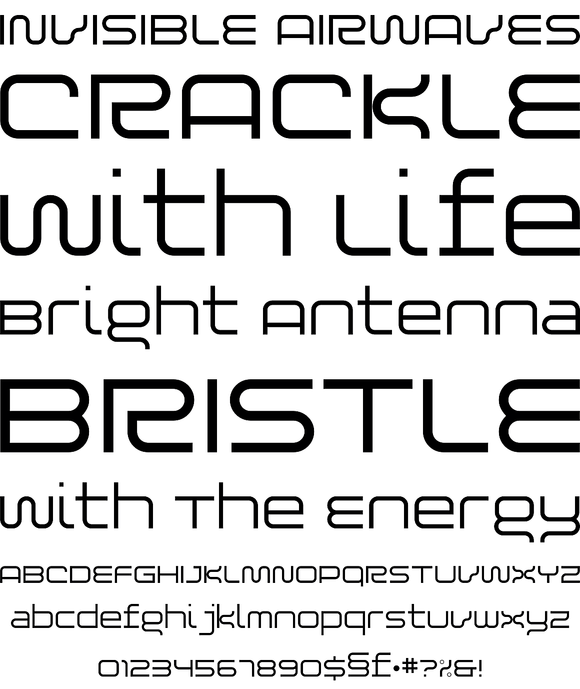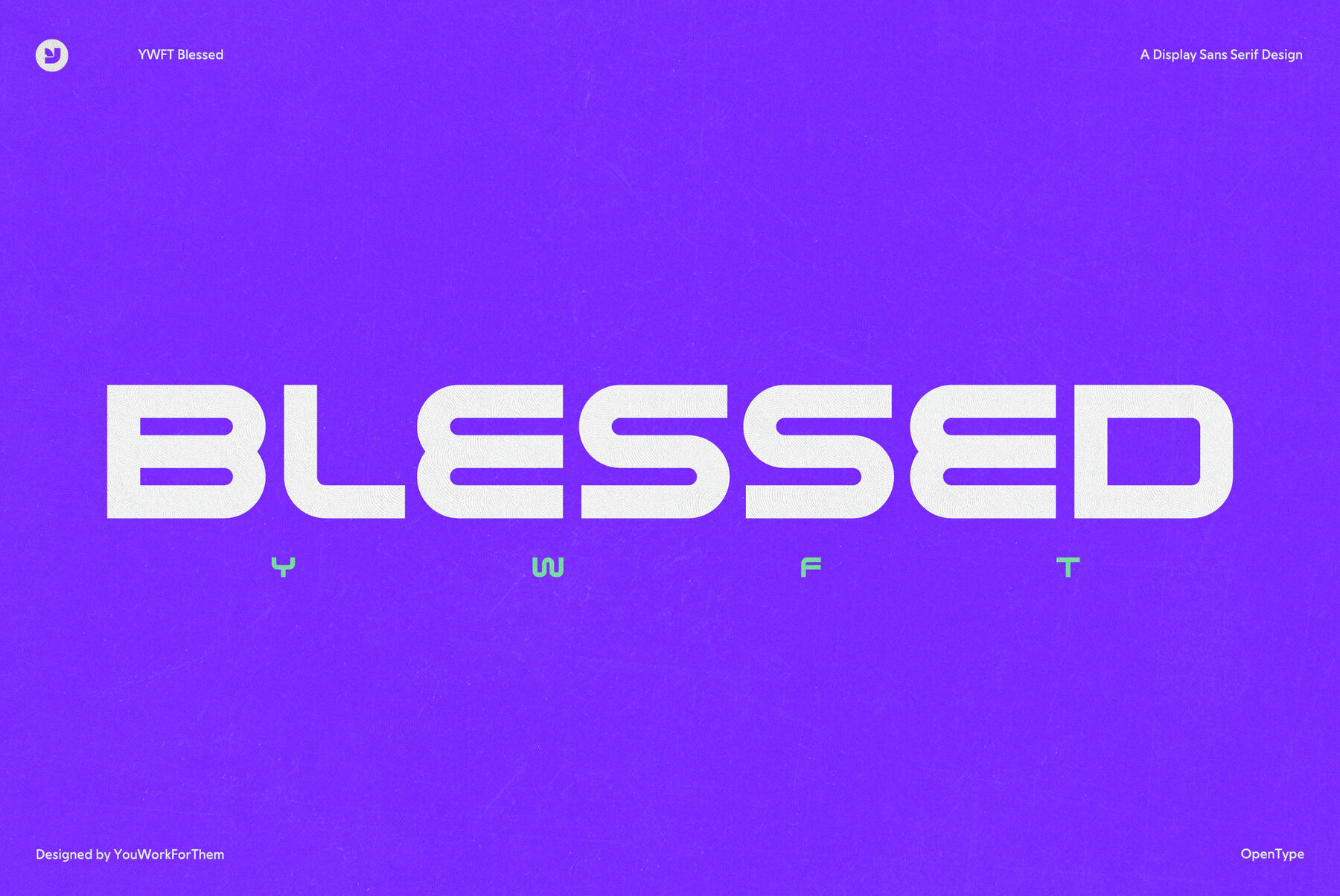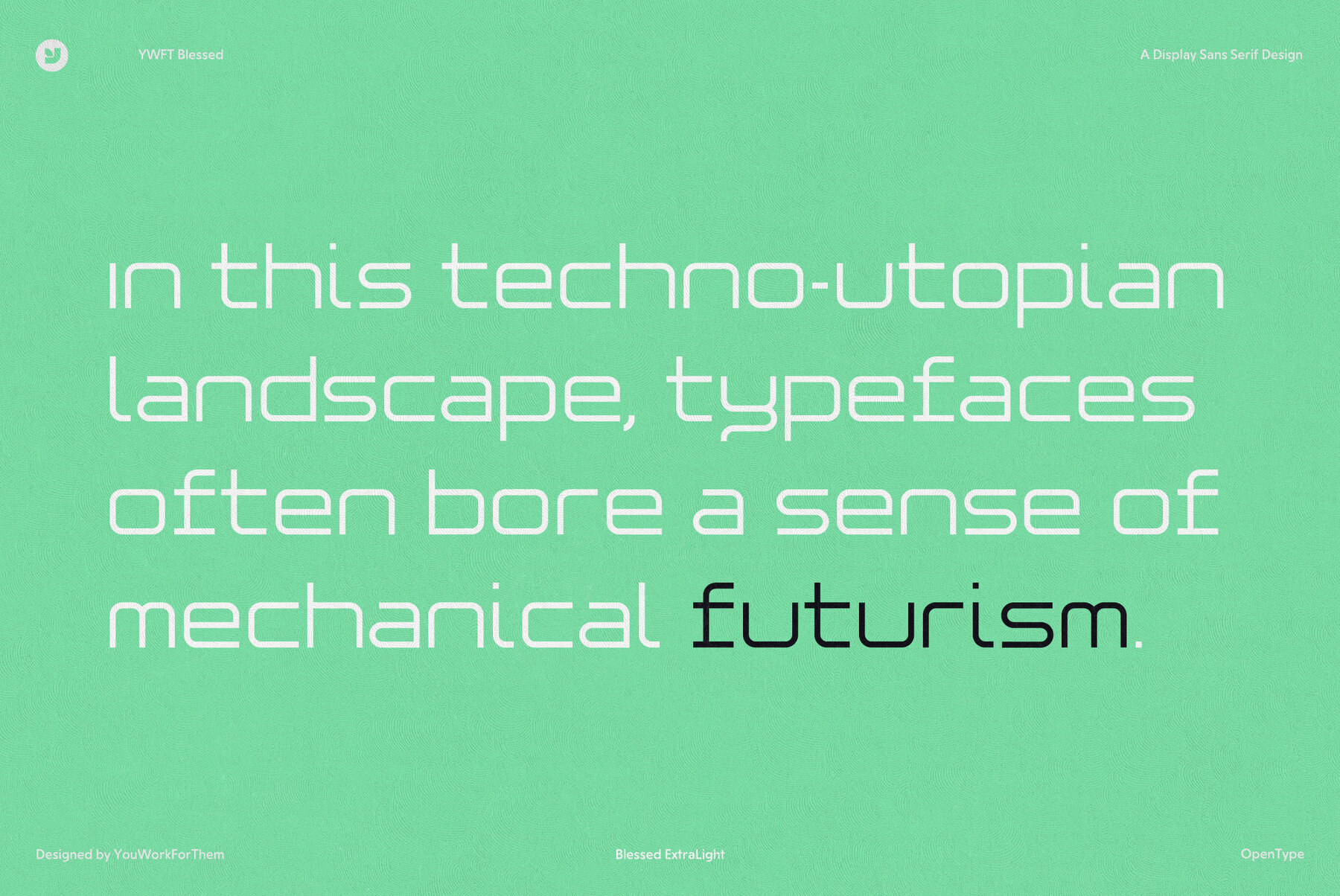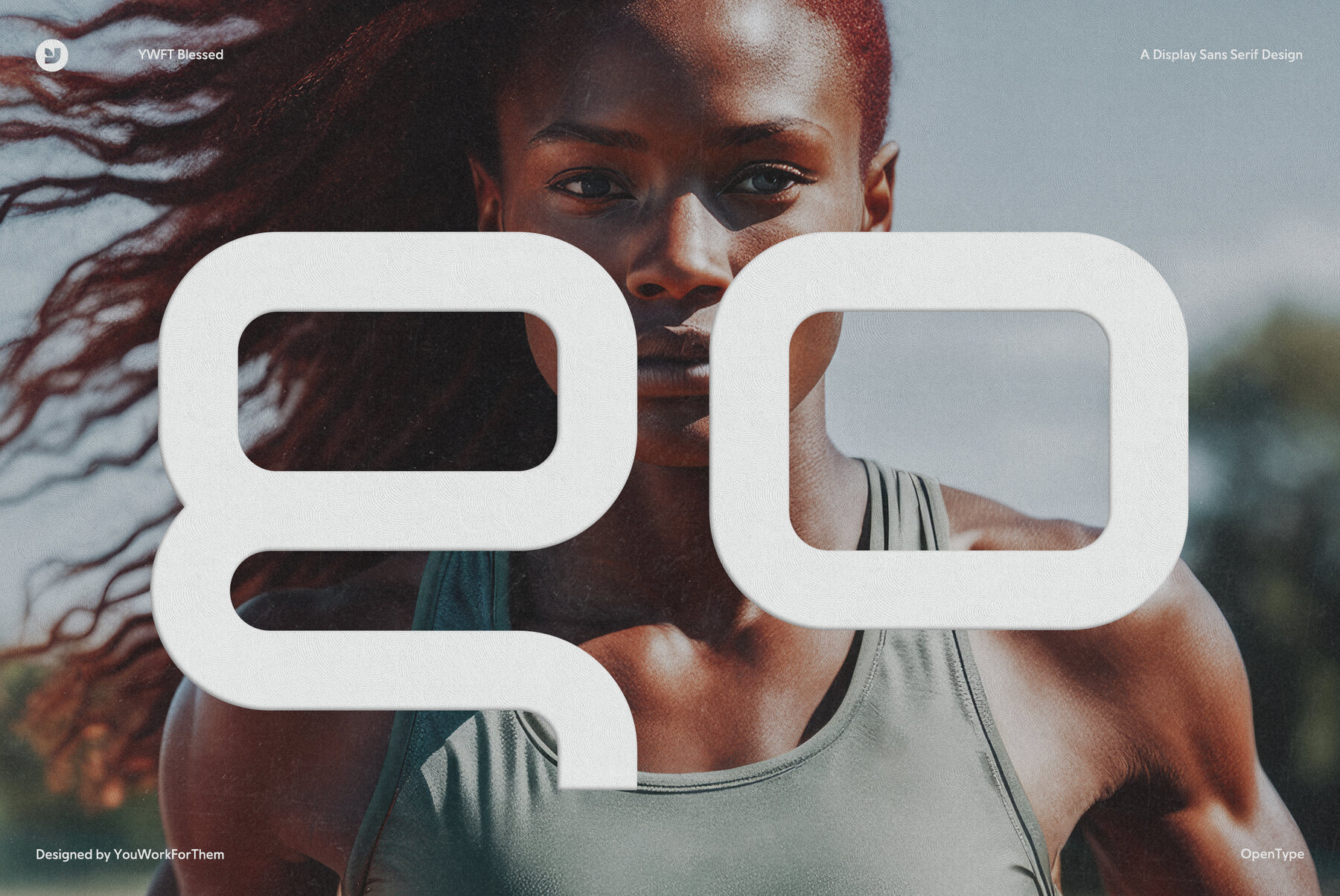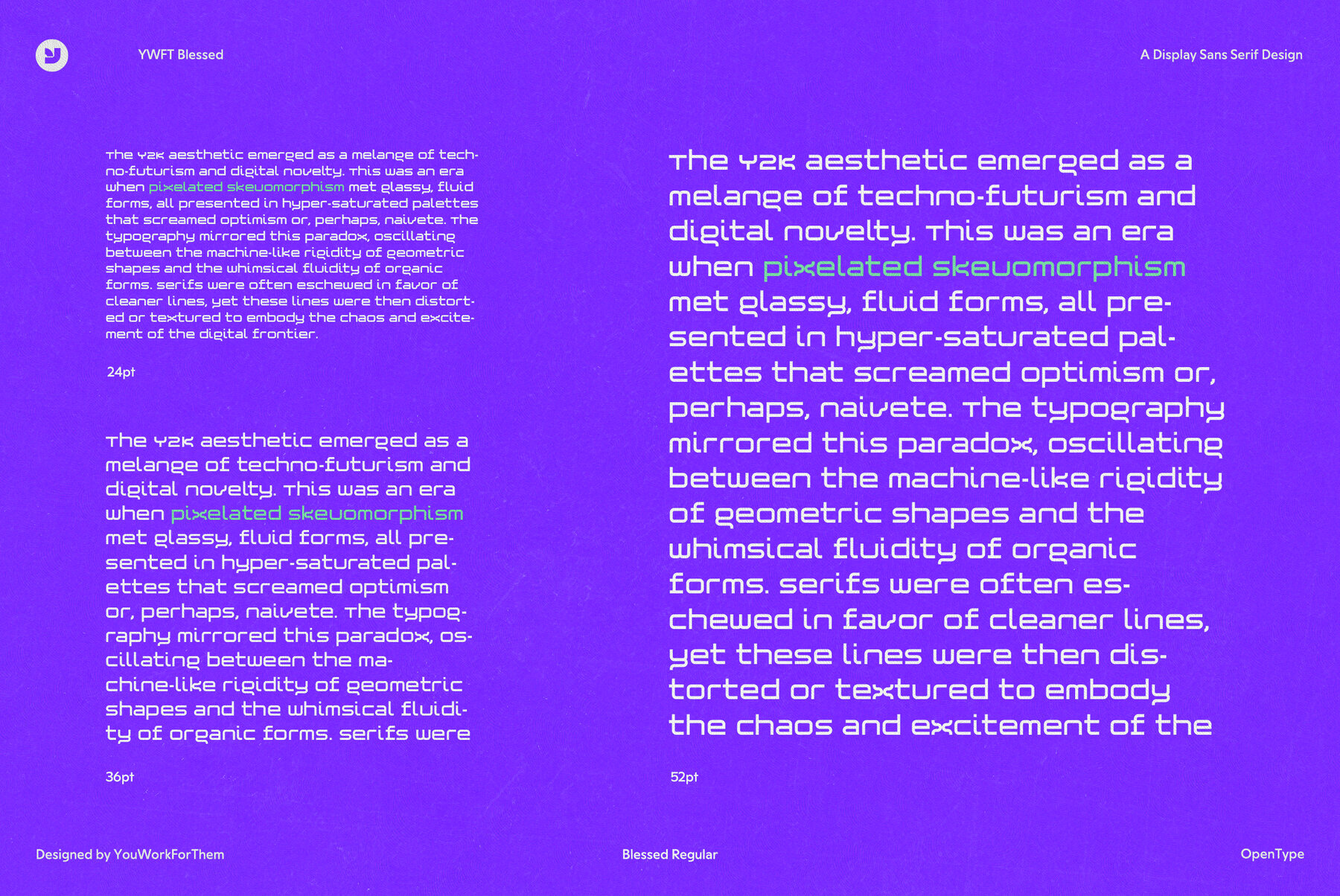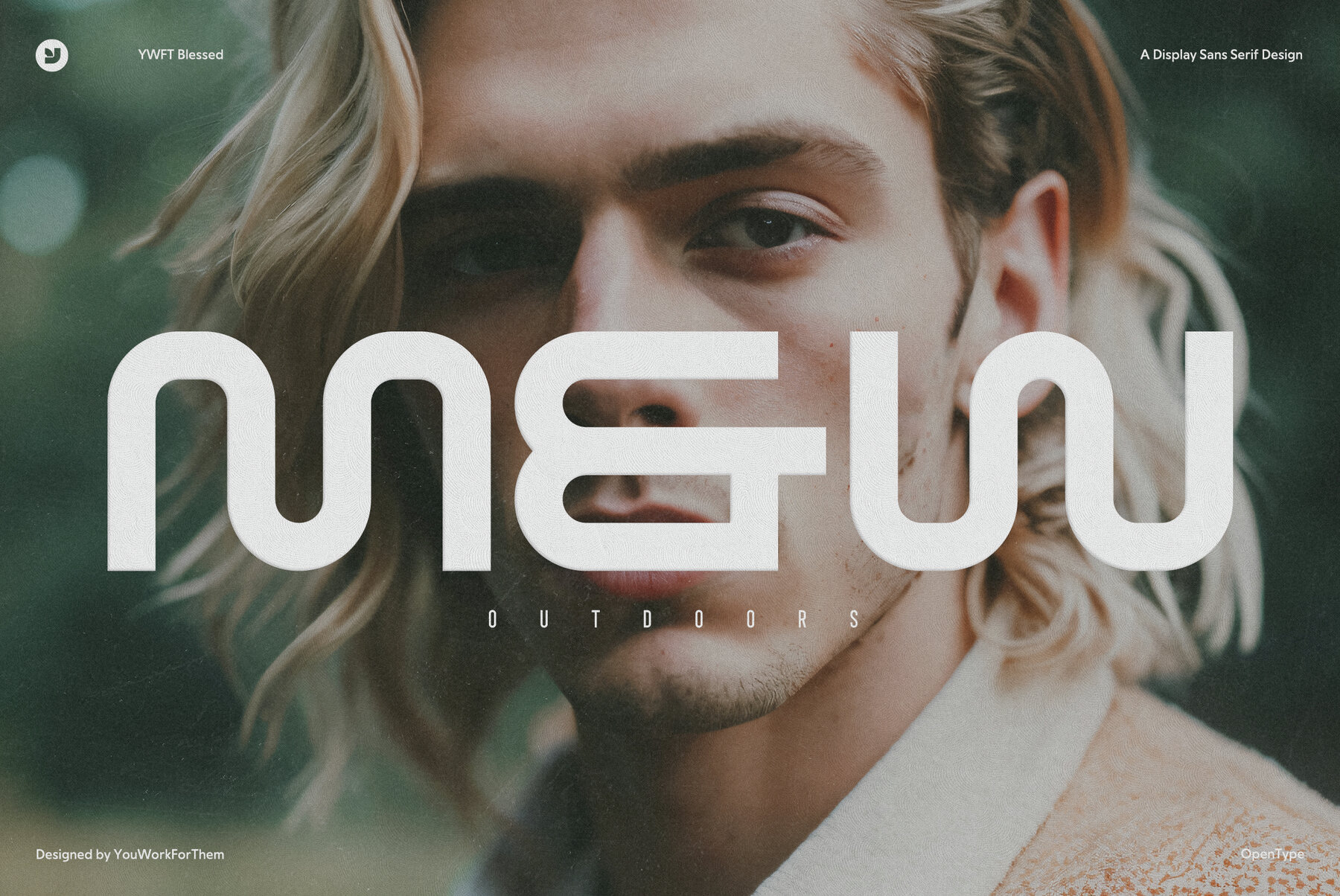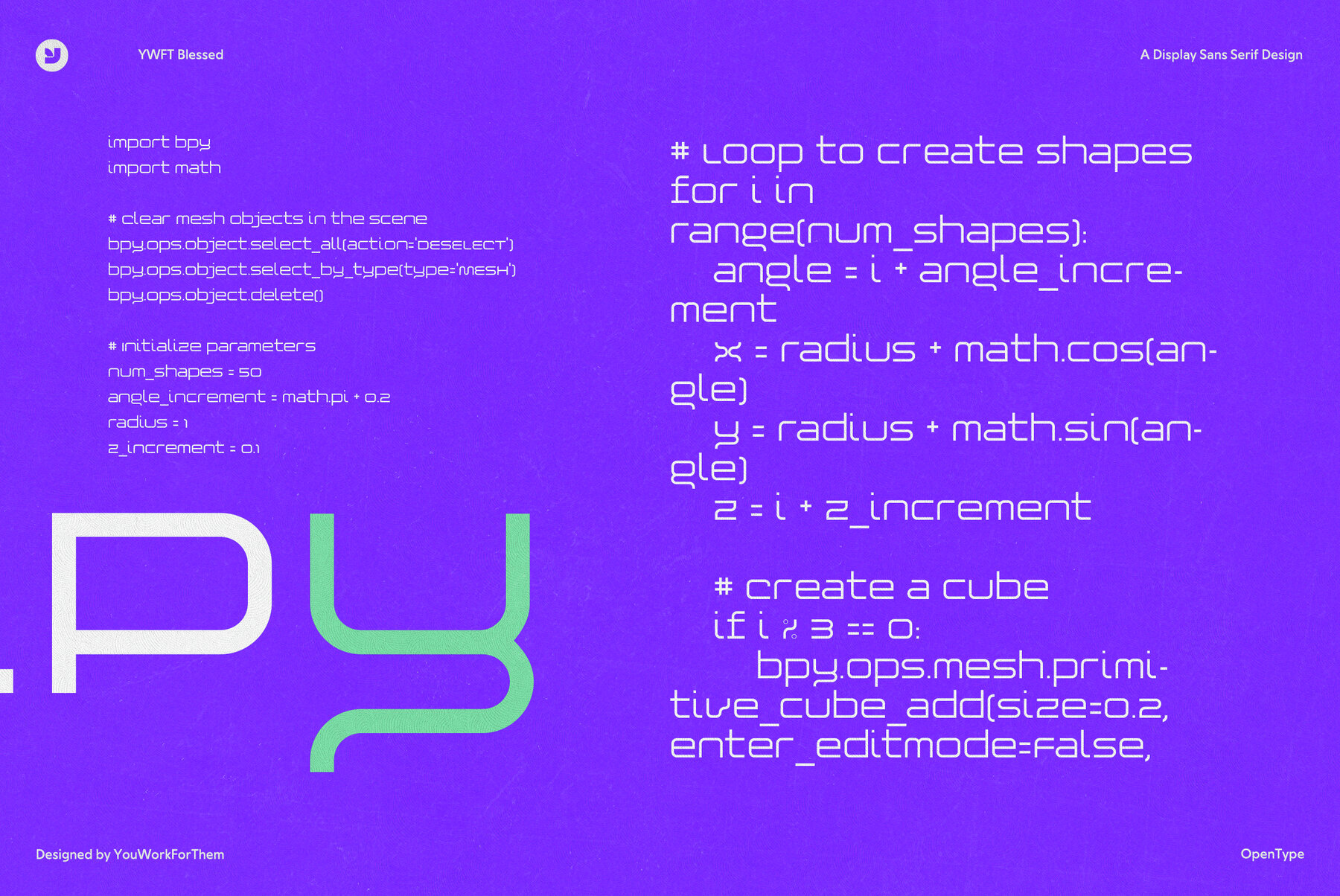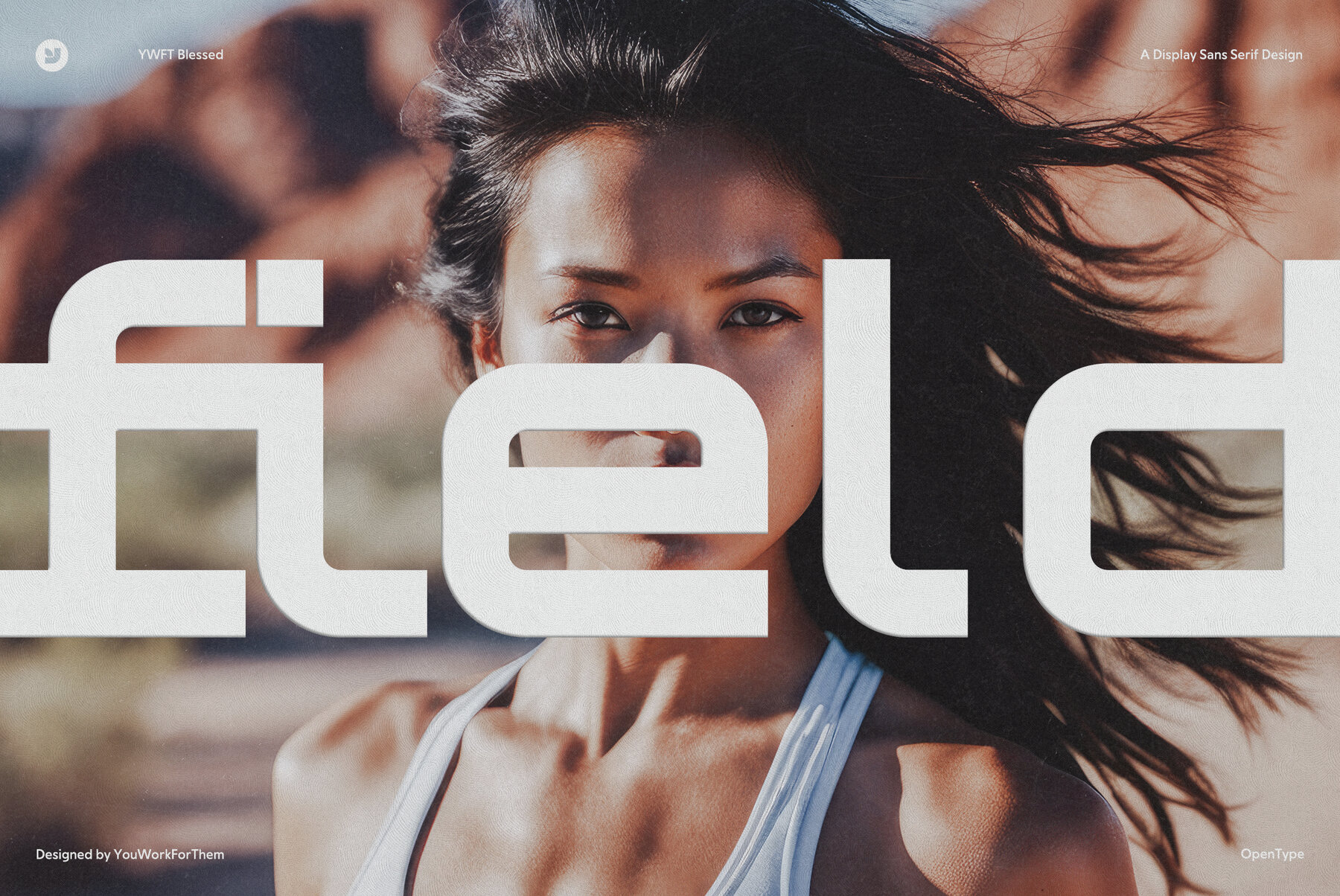
YWFT Blessed Font
Crafted by YouWorkForThem, this font traces its history back to the significant redesign of Features:YWFT Blessed: An Intelligent Font for Design Innovators
in 1999, a project known for its forward-thinking aesthetic. YouWorkForThem Blessed seamlessly integrates remarkable legibility, distinct design, and smooth anti-aliasing, ensuring your content remains consistently engaging and visually refined. Whether utilized for branding, marketing, or web design, this font embodies intelligent design principles that resonate with today’s discerning graphic designers.